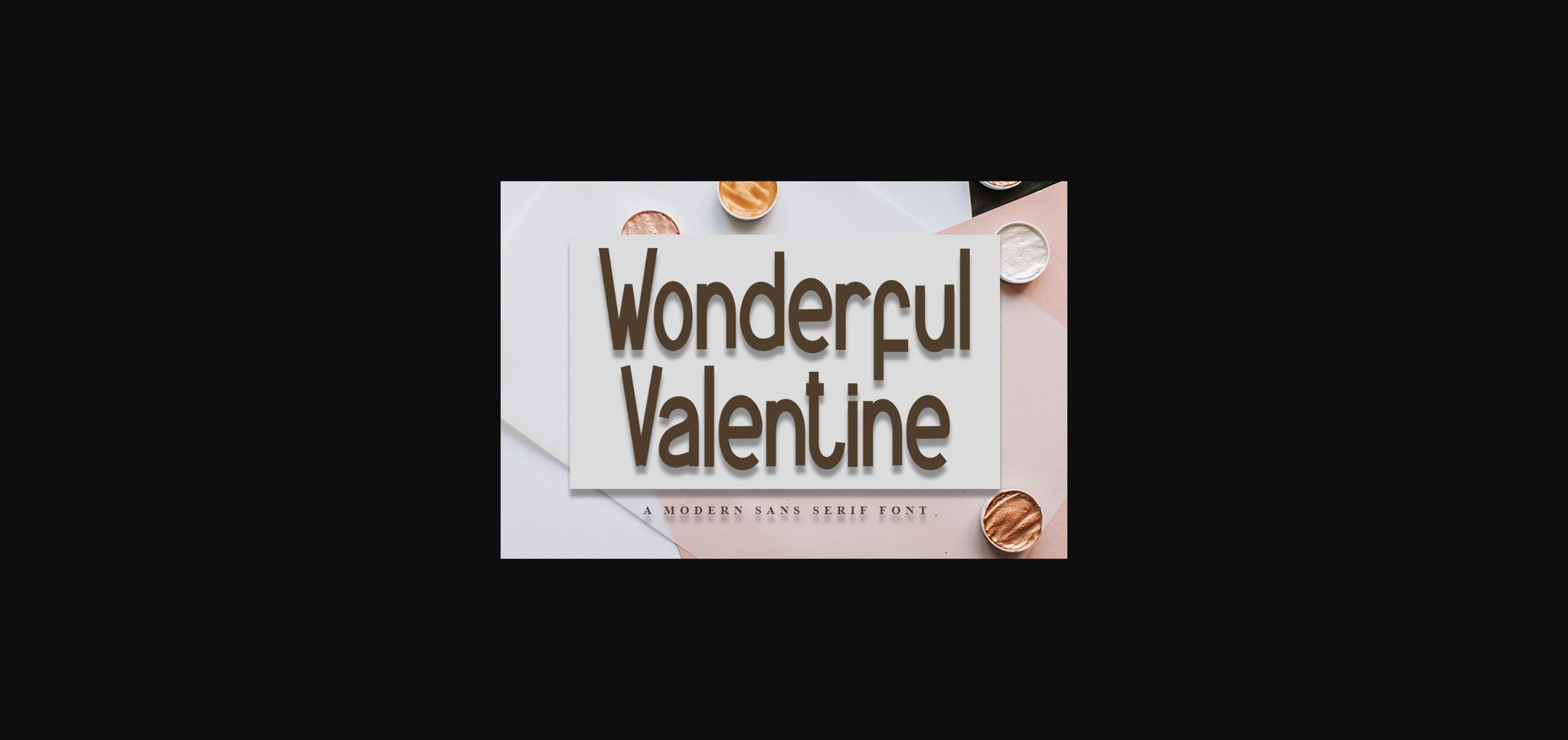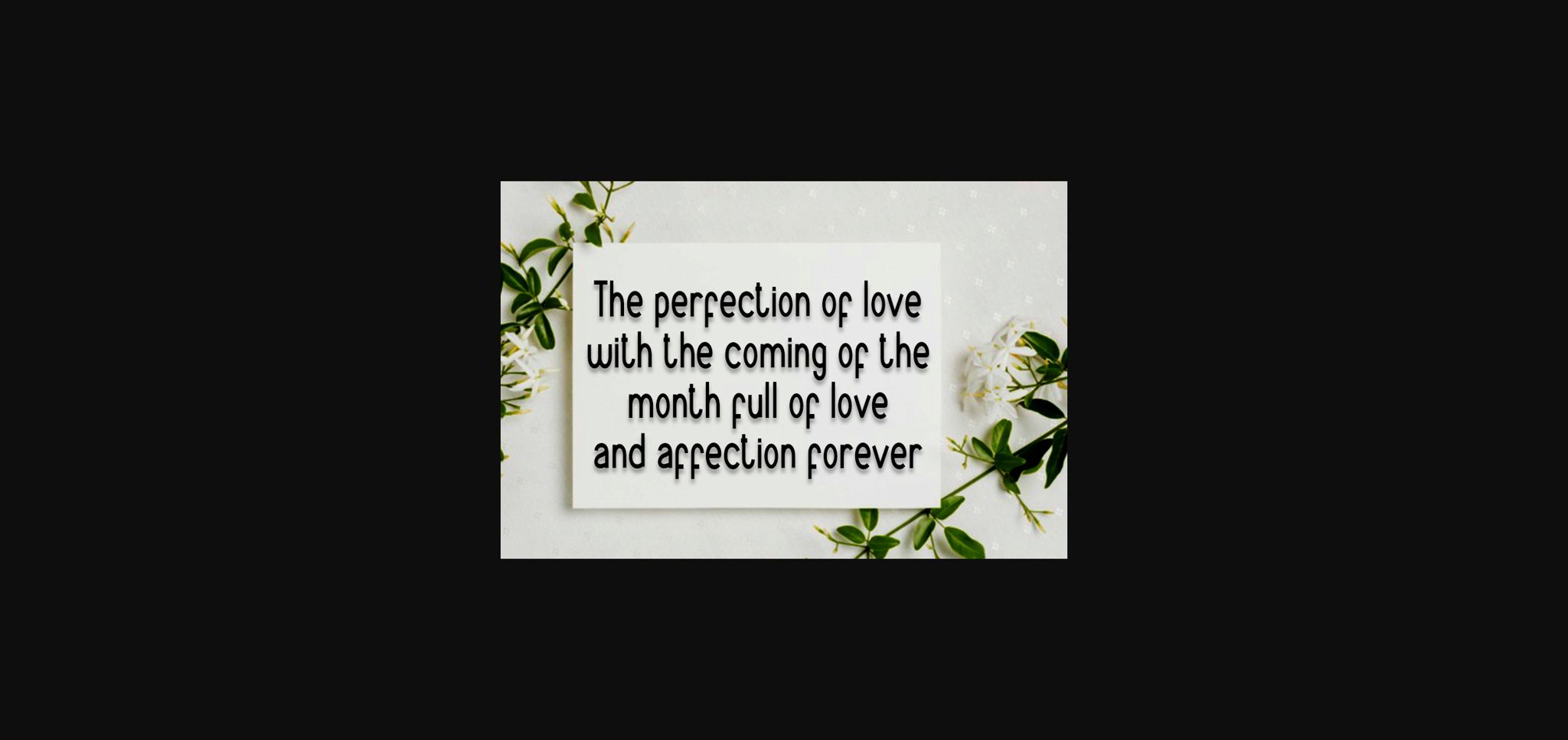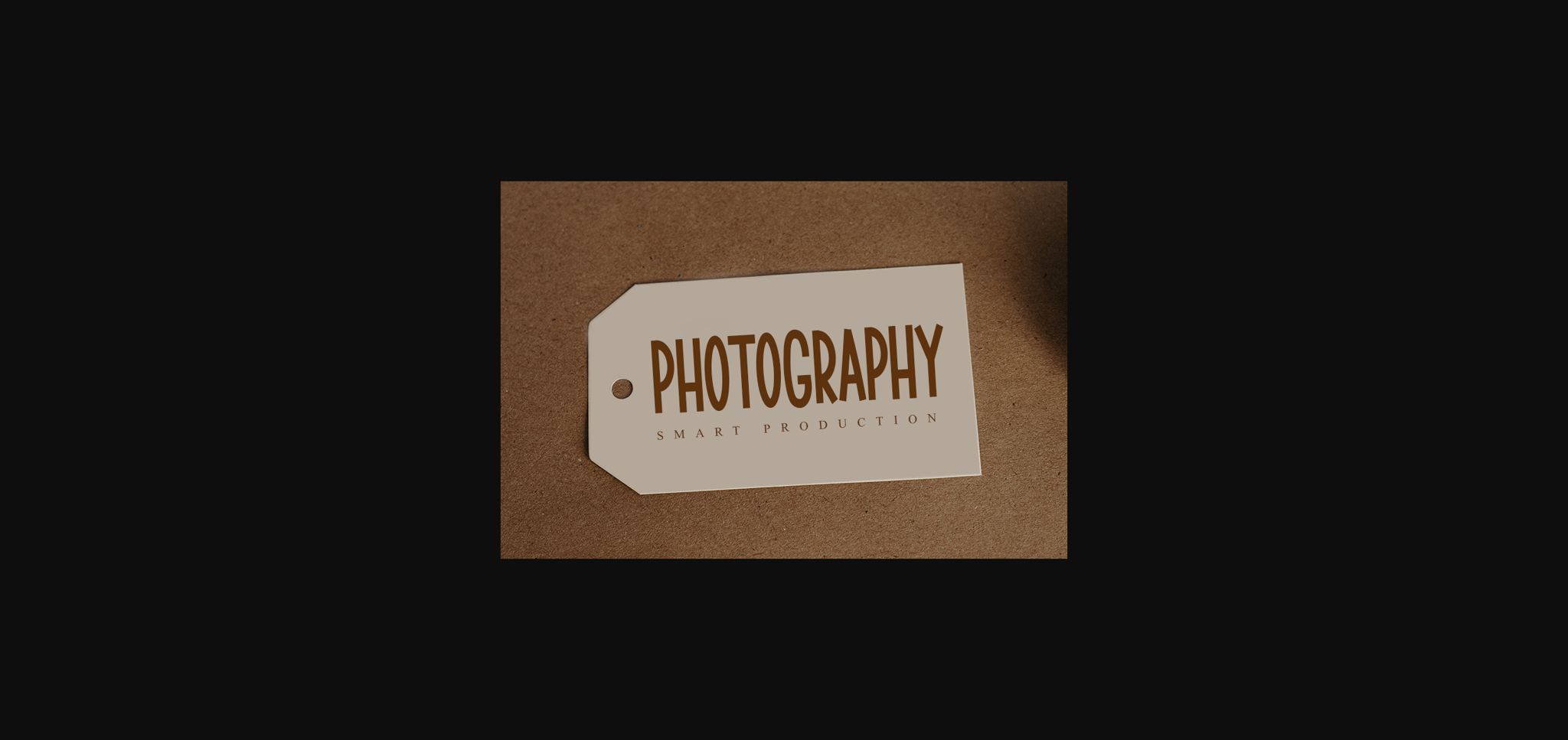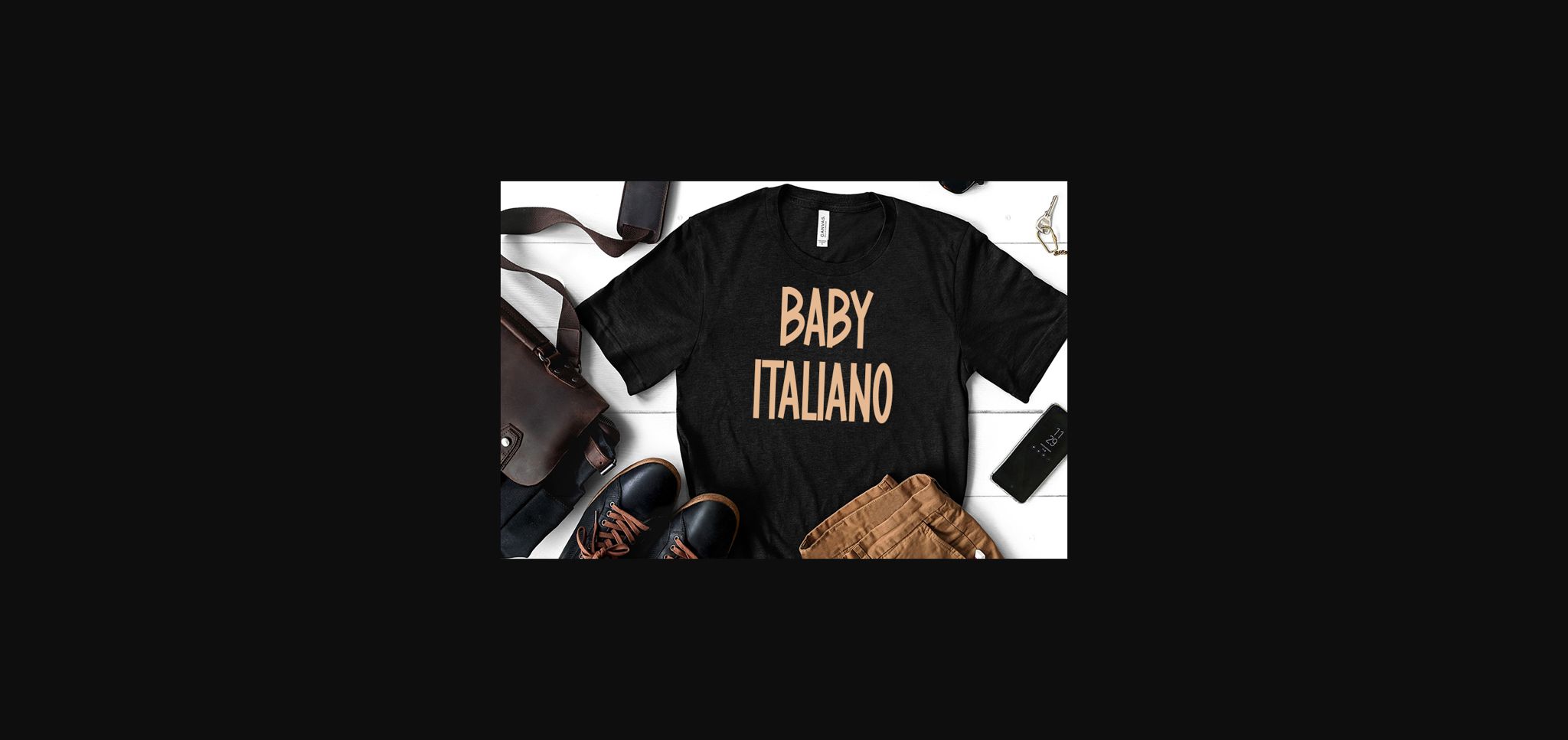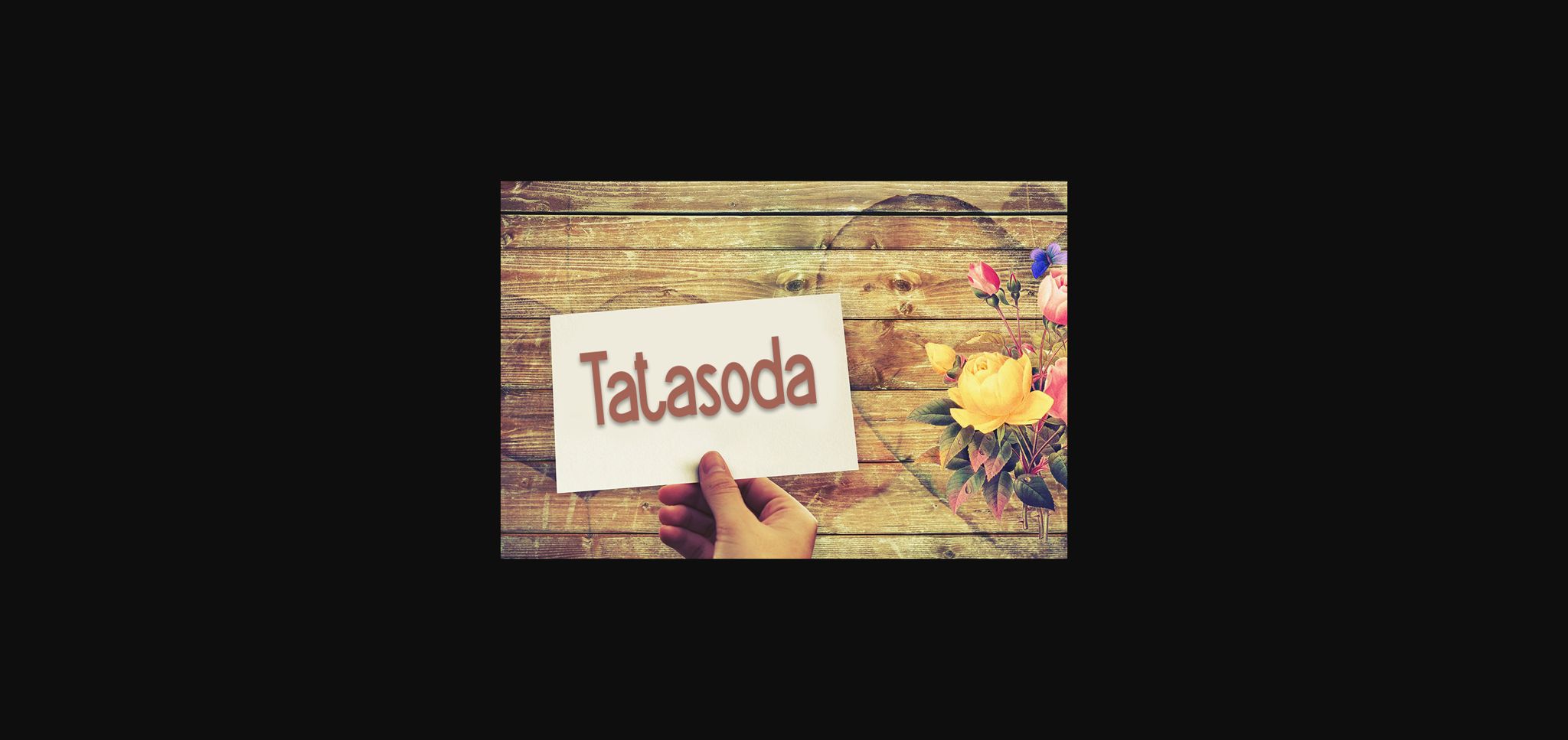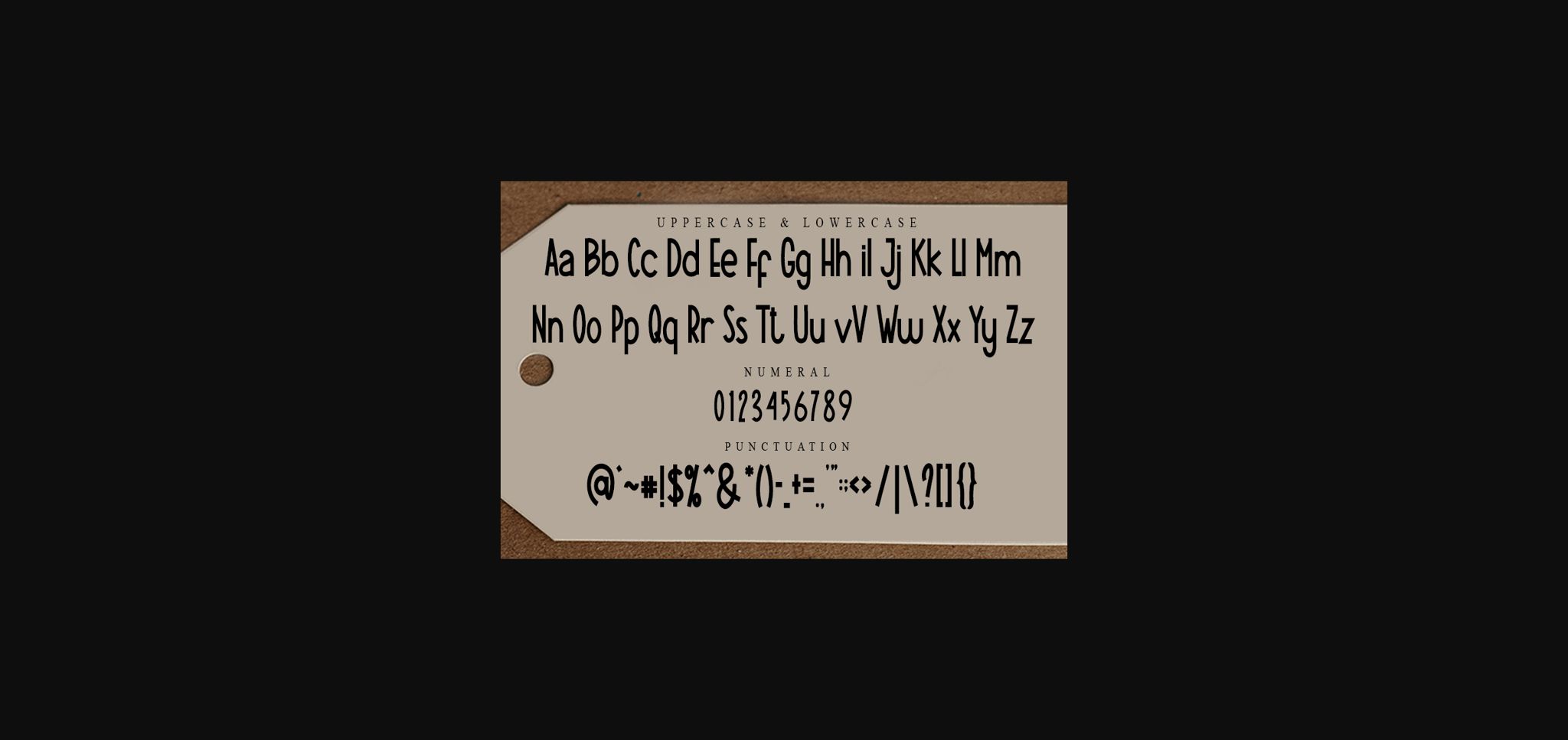
Wonderful Valentine Font
About Wonderful Valentine Font
Wonderful Valentine is a tall and friendly sans serif font. This font will complement a wide variety of contexts, so employ it confidently and cherish the results.